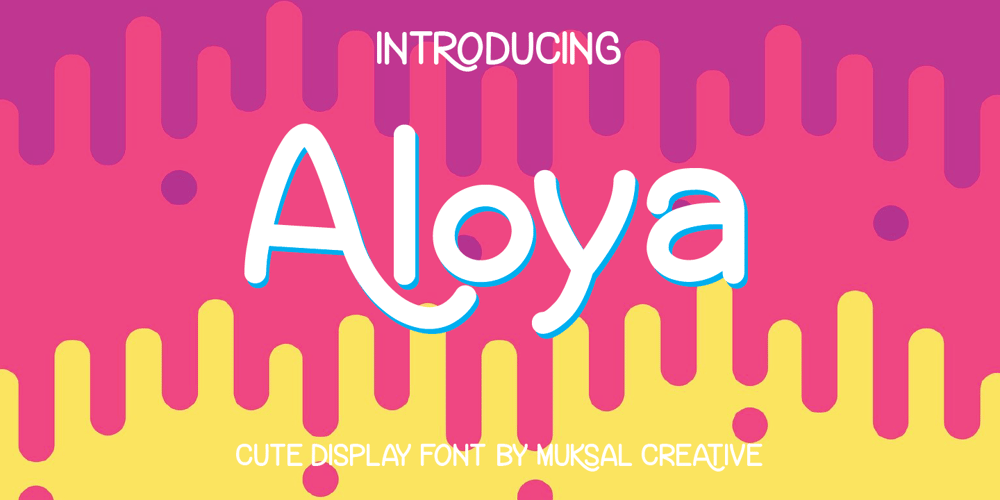
Aloya Font Family was designed by Muksalmina and published by Muksal Creatives. Aloya contains 1 styles and family package options. Aloya is a cute display font. Whether you use it for cartoon related designs, children games or just any creation that requires a lovely touch, this font will be an amazing choice.